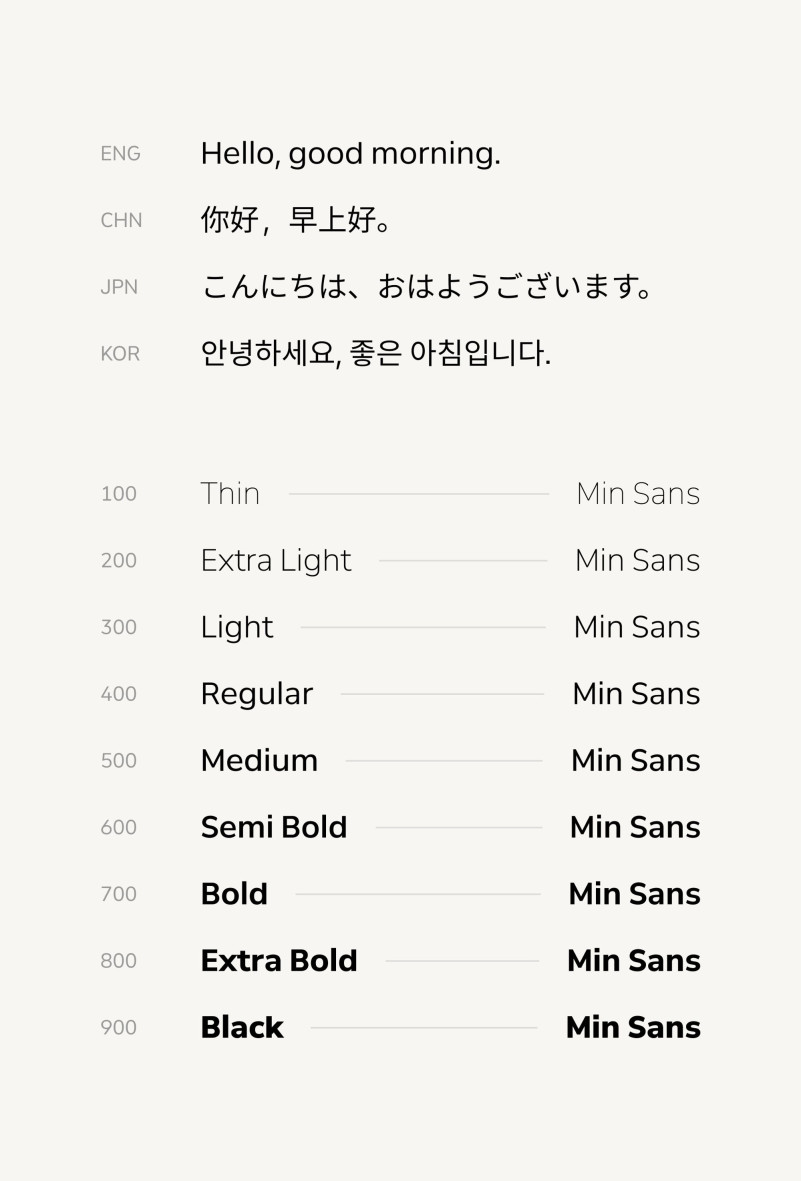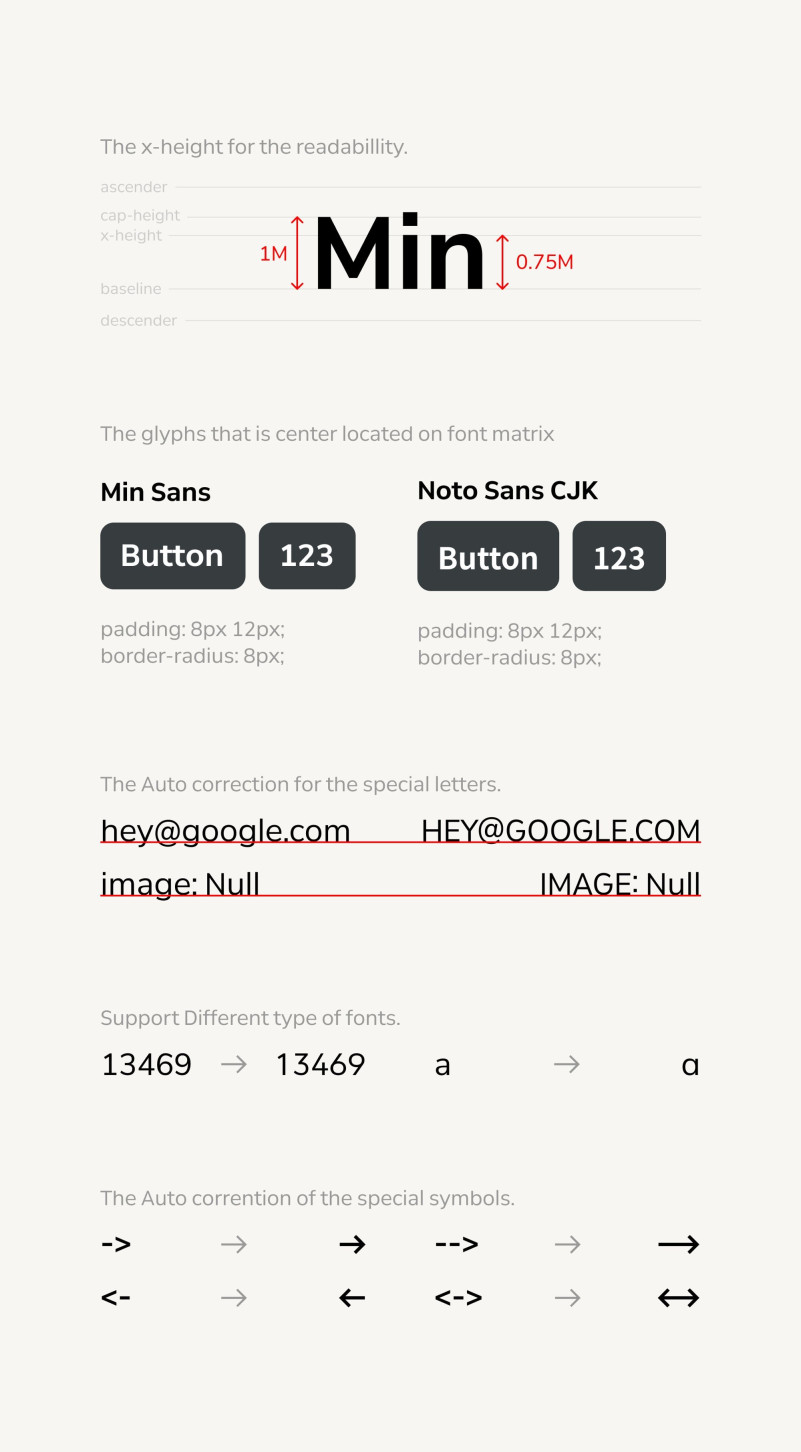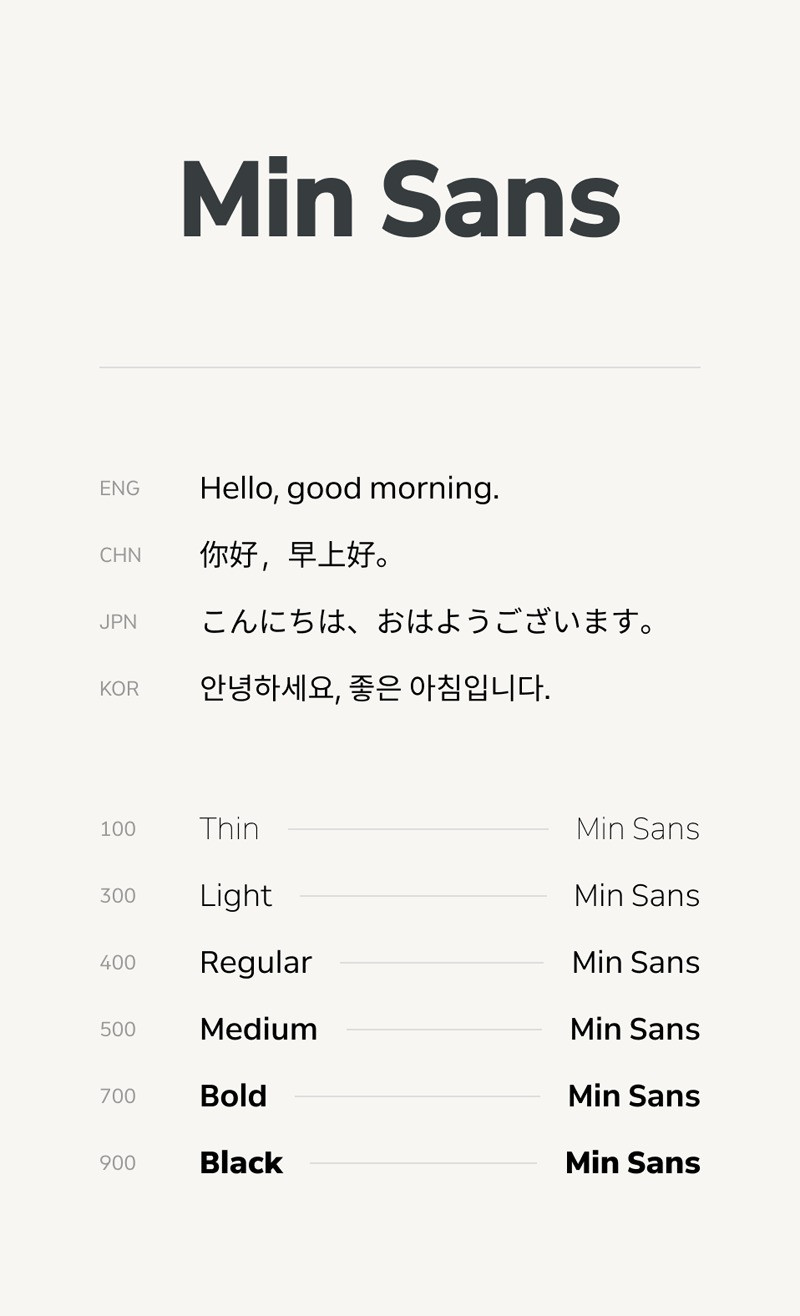
Min Sans Font
Min Sans Font, is a harmonious multilingual typeface that combines CJK, Latin letters, and numbers.
It is customized based on Noto Sans and Nunito Sans and is designed to provide the same results on the cross-platform.
– The suitable design for the 4x, 8x.
– Support the even-numbered spacing for the size of major fonts. (it is based on Web environment, Can be seen differently on the current program.)